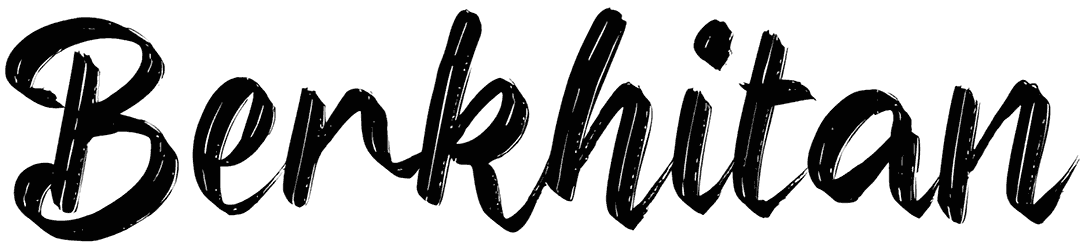
b Berkhitan Font
b Berkhitan is a lovely script font that can let you be dominant enough in the field of designing eye-grabbing cards, packaging, billboards, or social media posts. This magical brush font comes with crooked and curved characters, so it can boost the vibe of momentum, freshness, personalization, or dreaminess in your creative ideas. Needless to say, check out our expanding archive for daily updates.